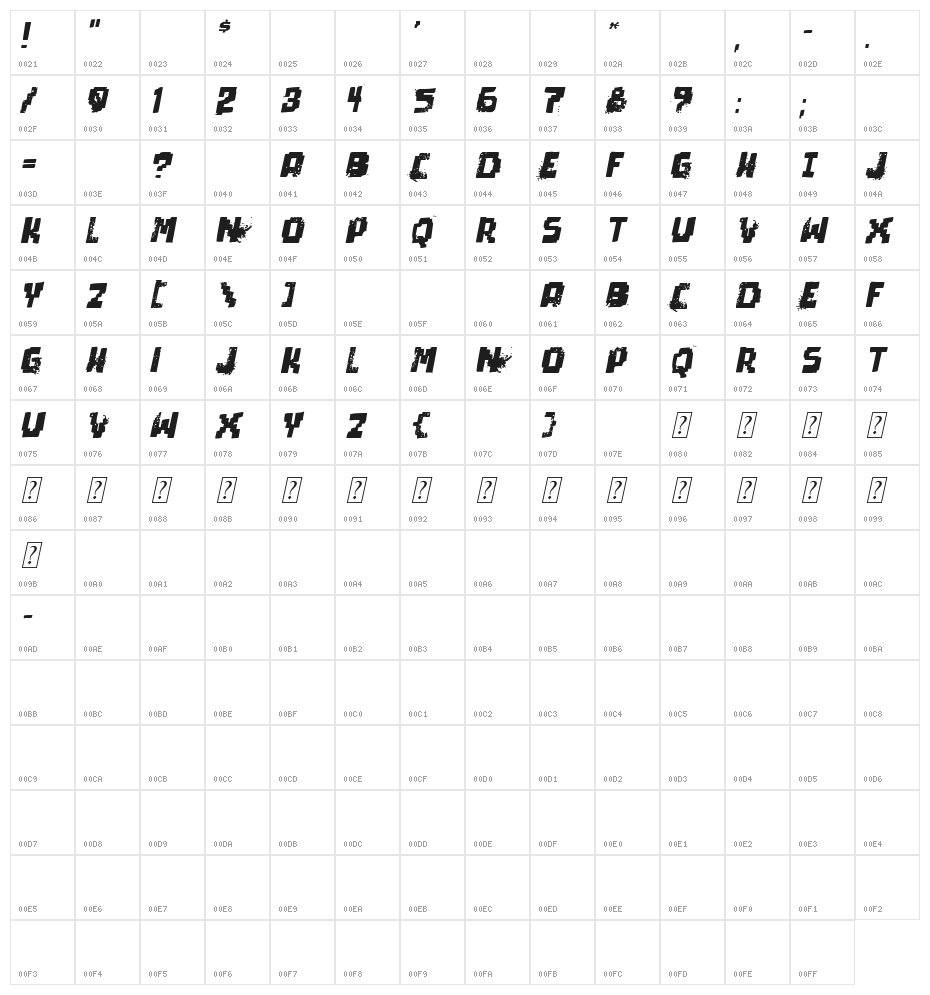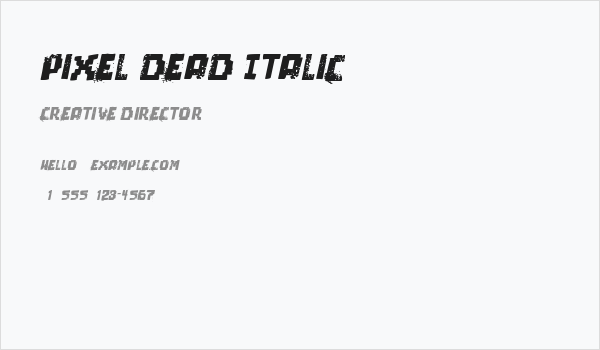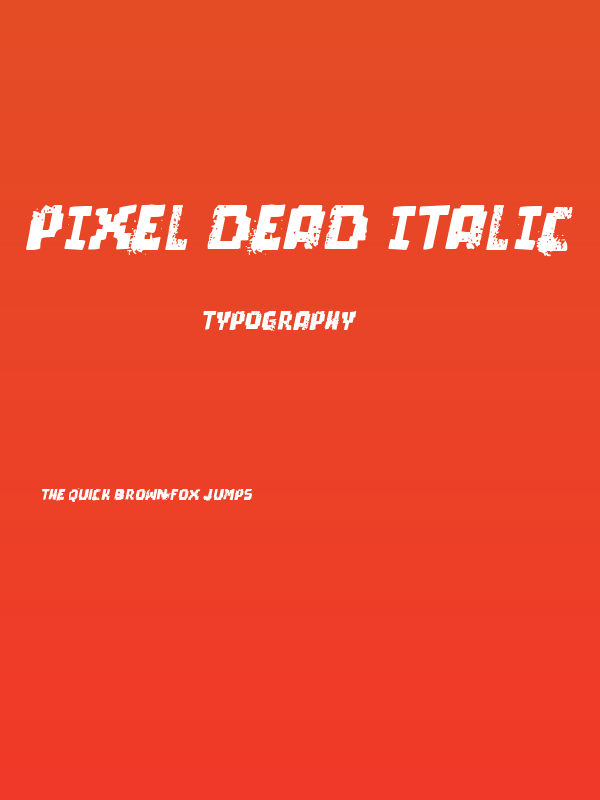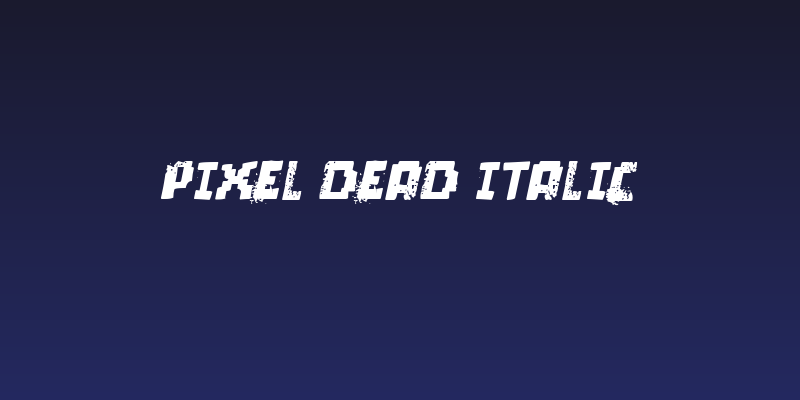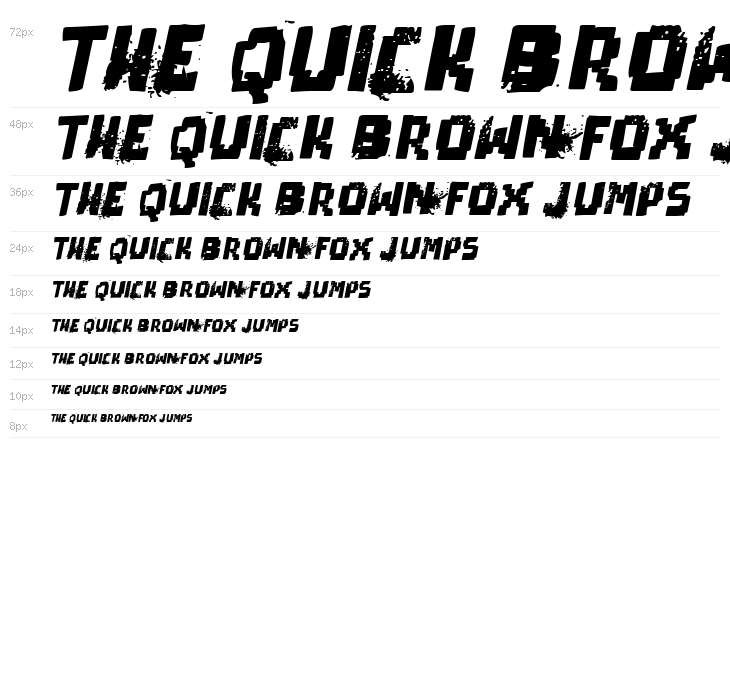
pixel dead Italic Font
pixel dead Italic Description
This font features a bold and distressed style, with a pixelated, grunge aesthetic that gives it a unique, edgy appearance. The characters are italicized, adding a dynamic and forward-leaning feel. Each letter and number is designed with irregular edges and a rough texture, reminiscent of digital glitches or decayed surfaces. This font captures a sense of chaos and movement, making it ideal for projects that require a bold statement. The uppercase and lowercase letters maintain a consistent style, and the numbers and special characters follow the same distressed theme, ensuring a cohesive look across all text elements.
| Overall Style | Modern, Grunge |
| Proposed Projects | Ideal for video game graphics, edgy posters, music album covers, and urban-themed designs. |